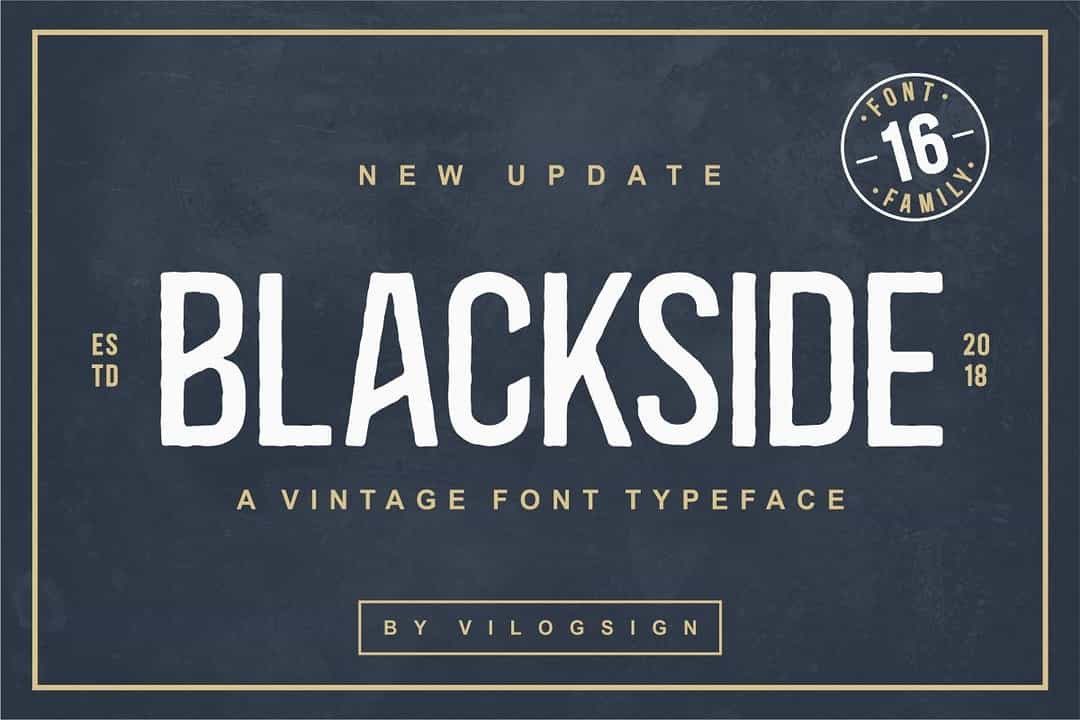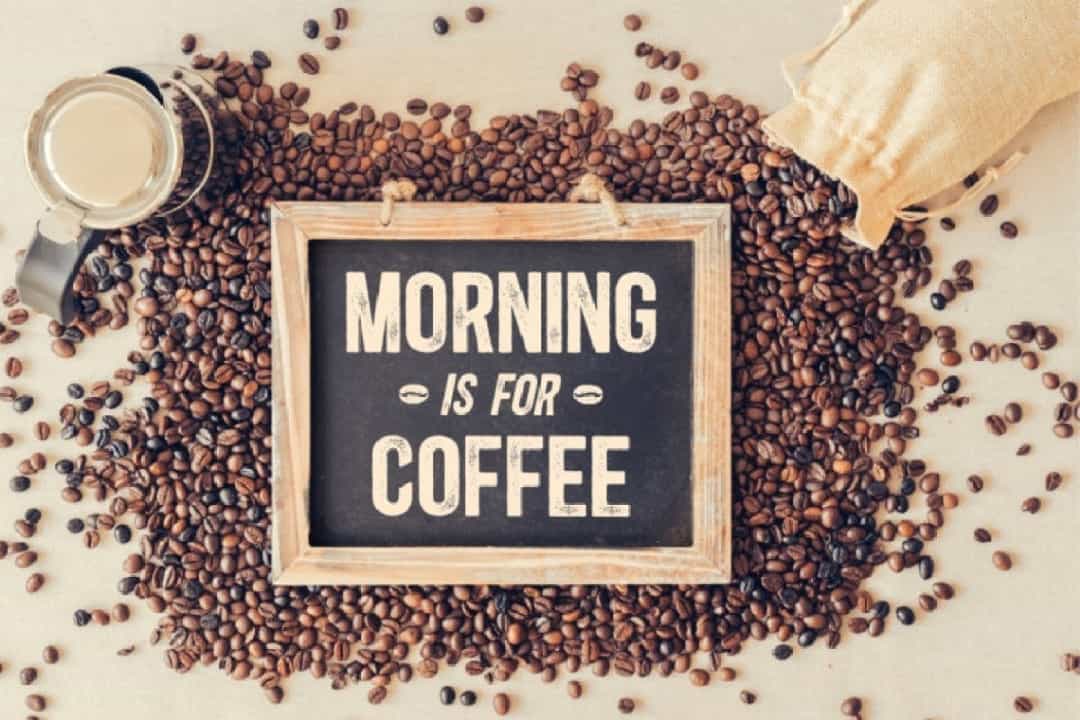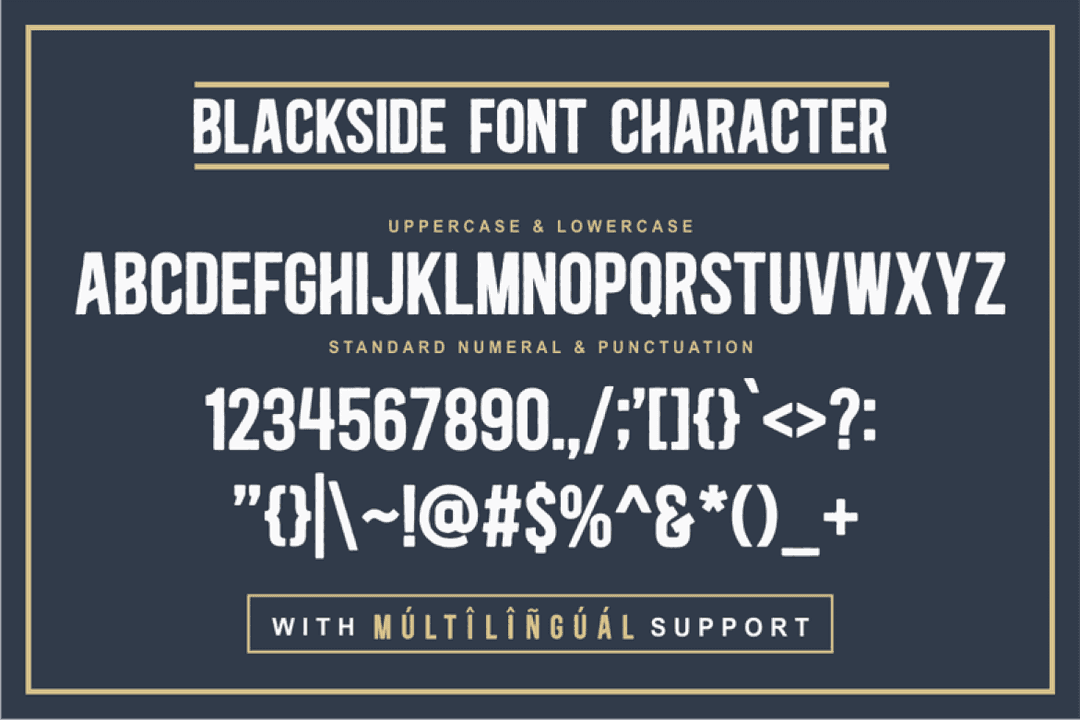
Blackside is an old-fashioned font family with a distinctive round and rough style that gives off an organic feeling, ideal for labels, logos banners posters banners and designs requiring naturalistic forms.